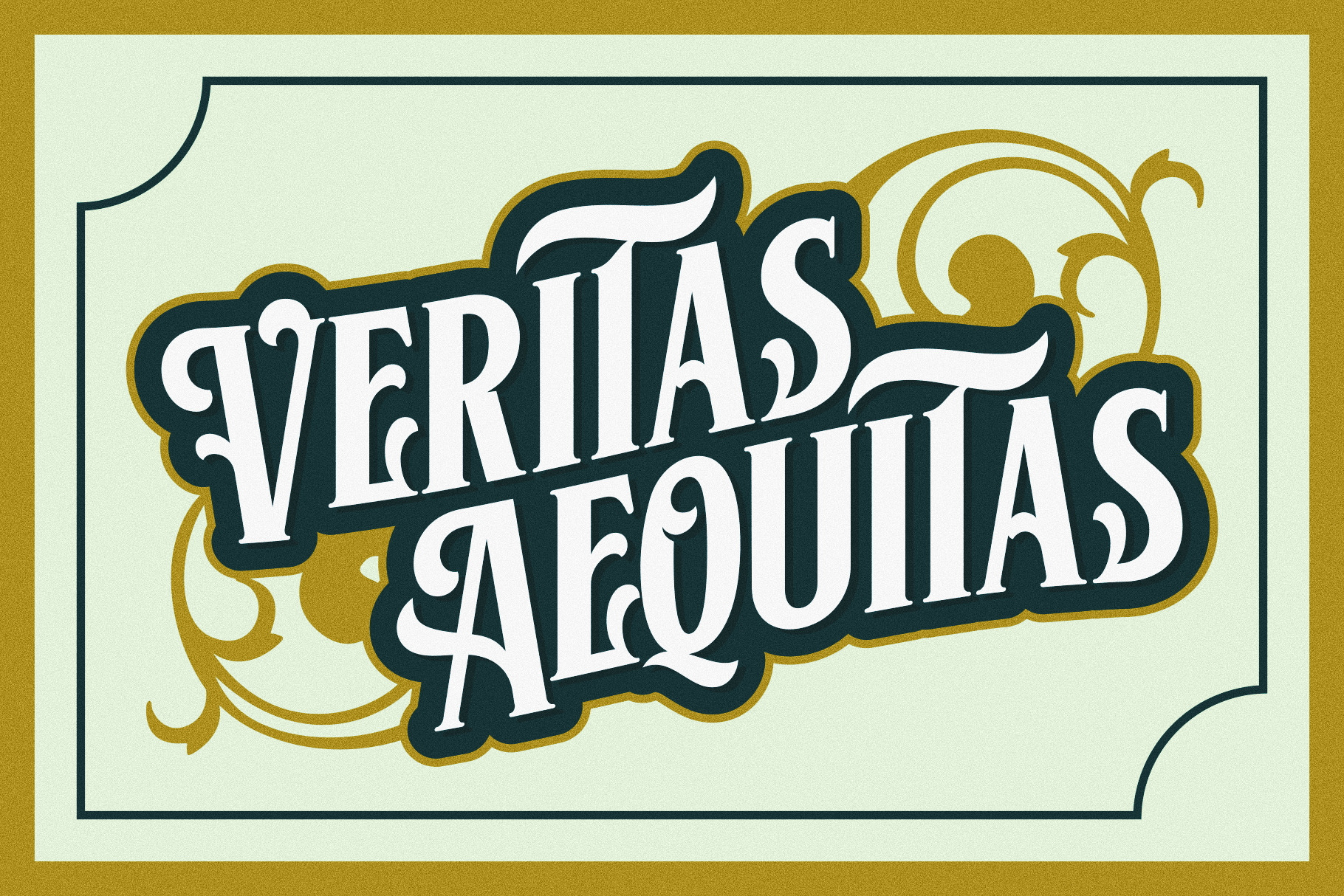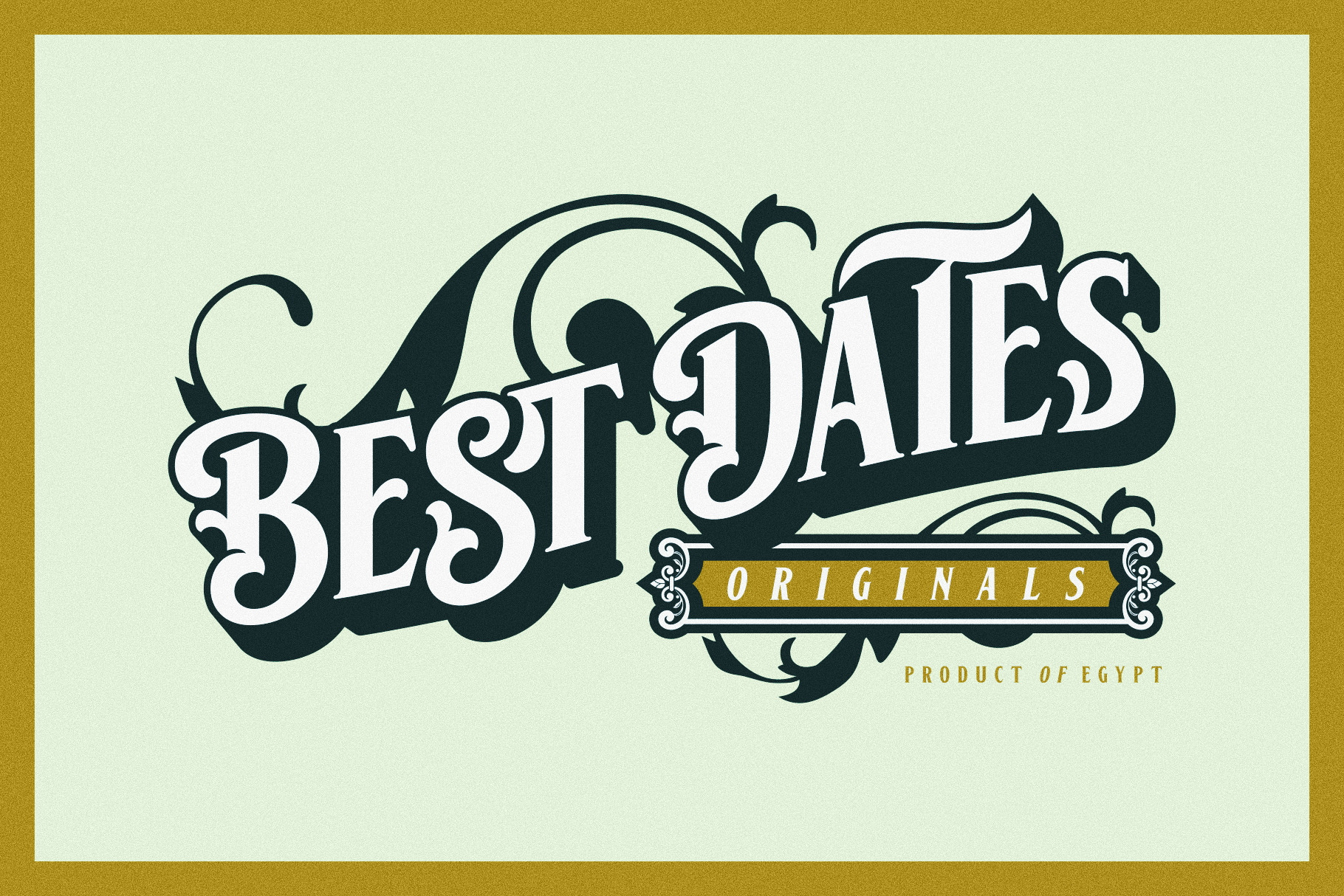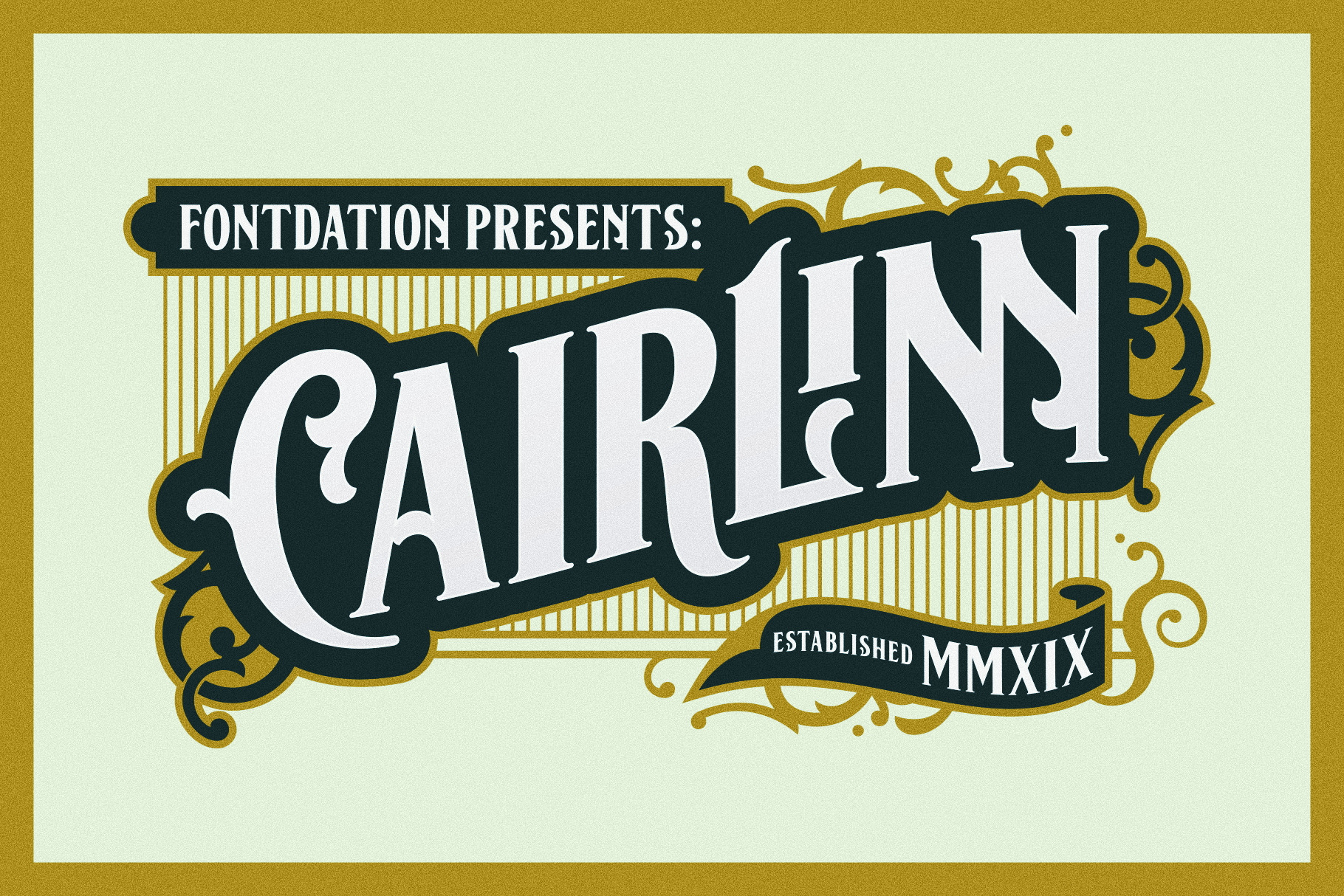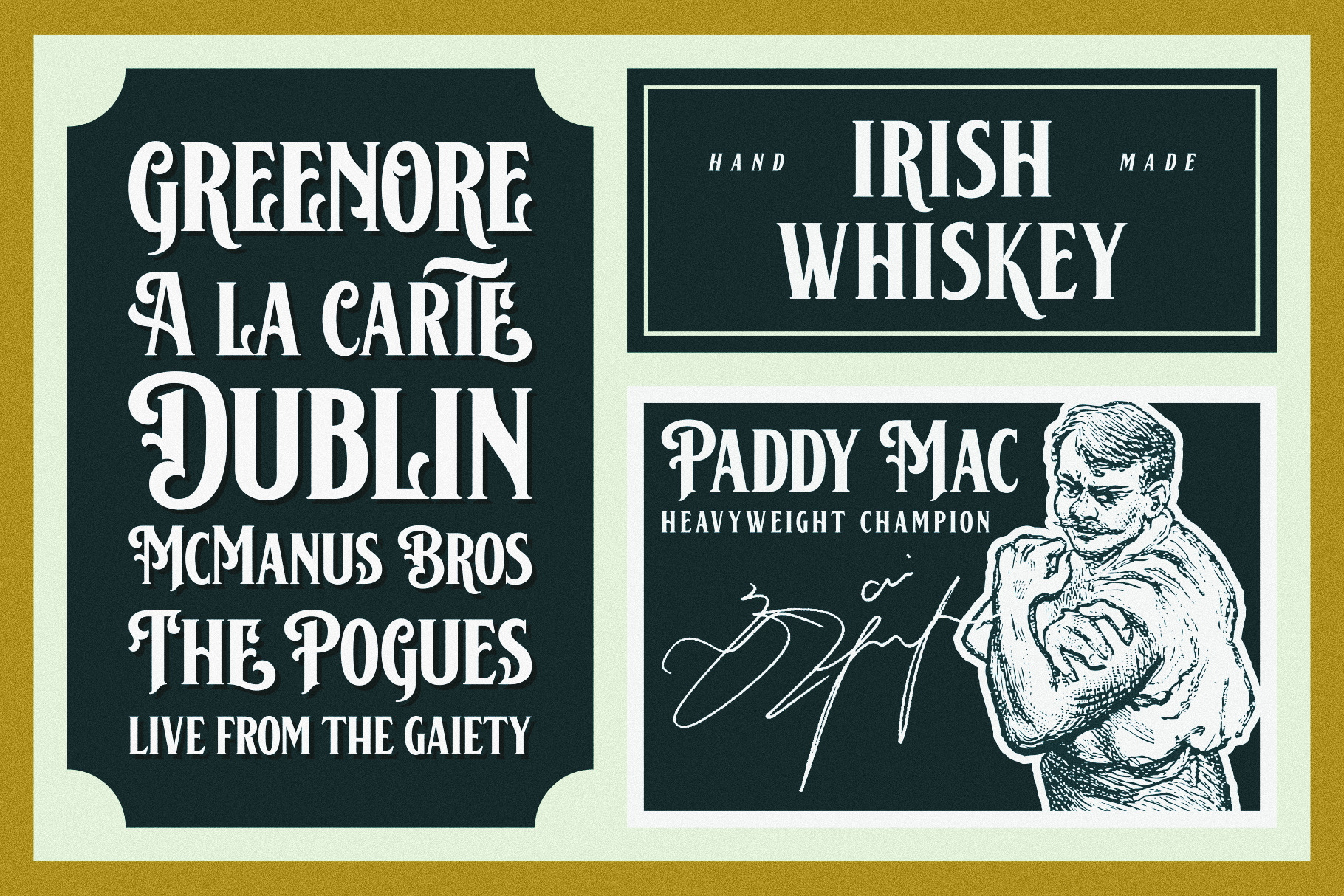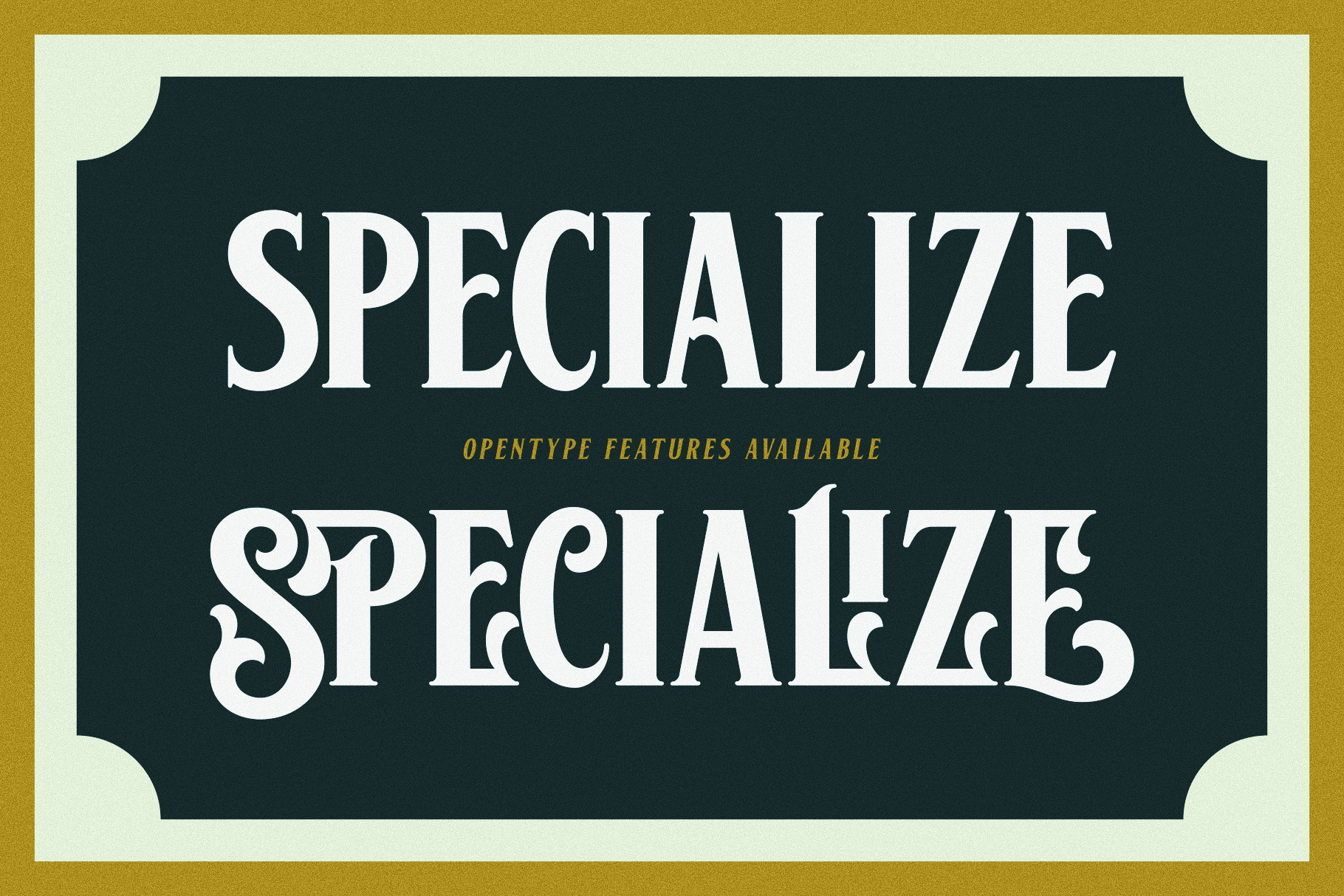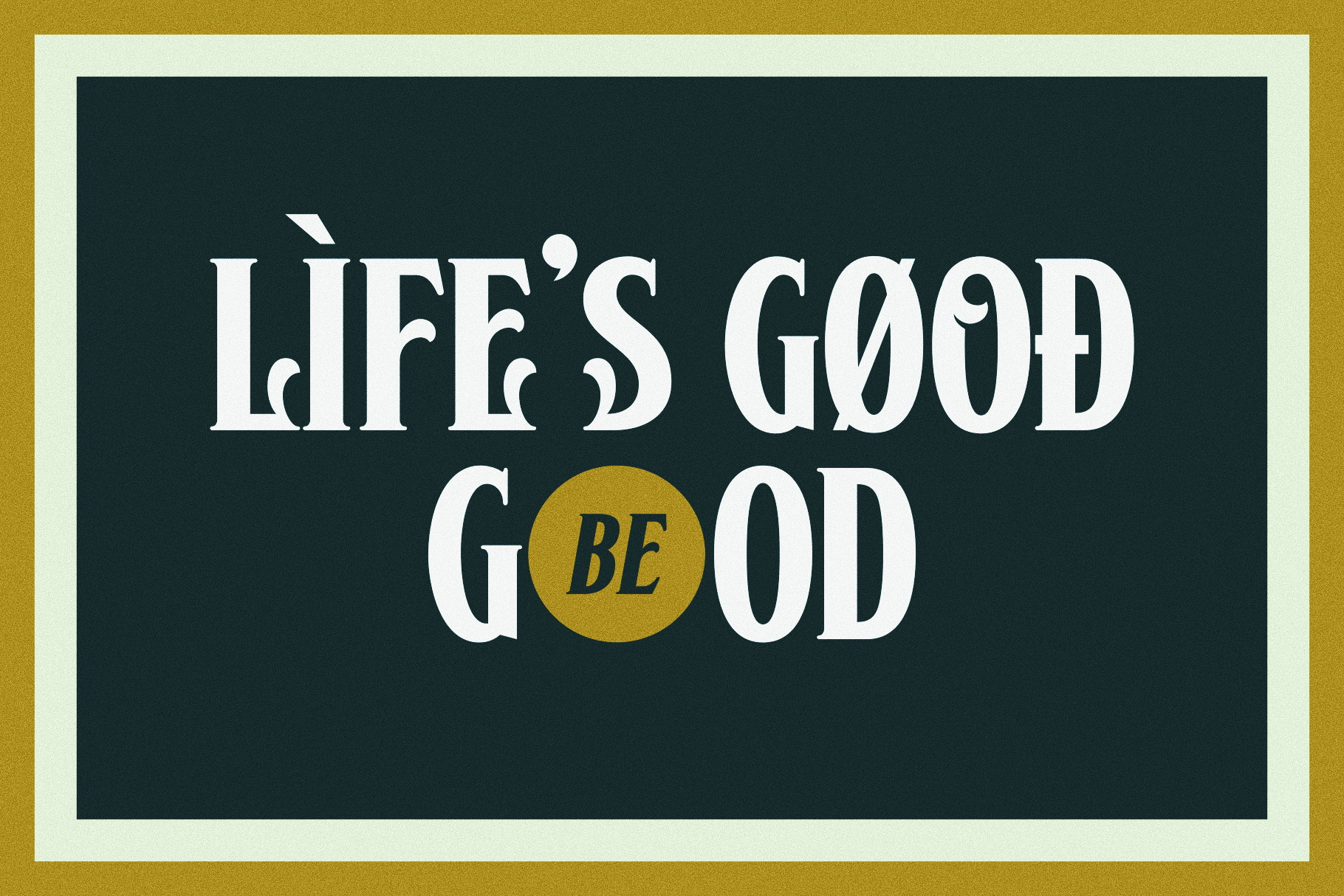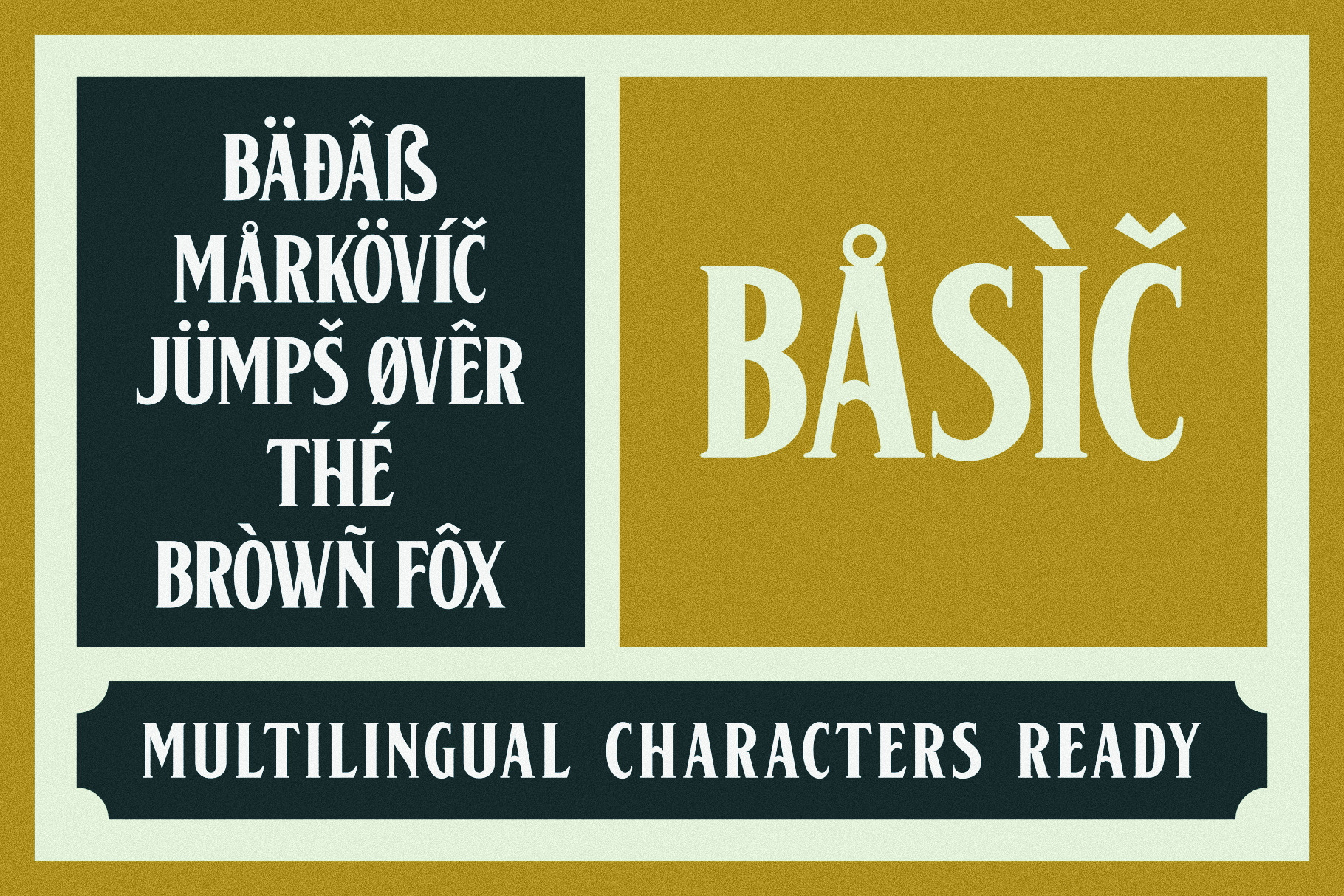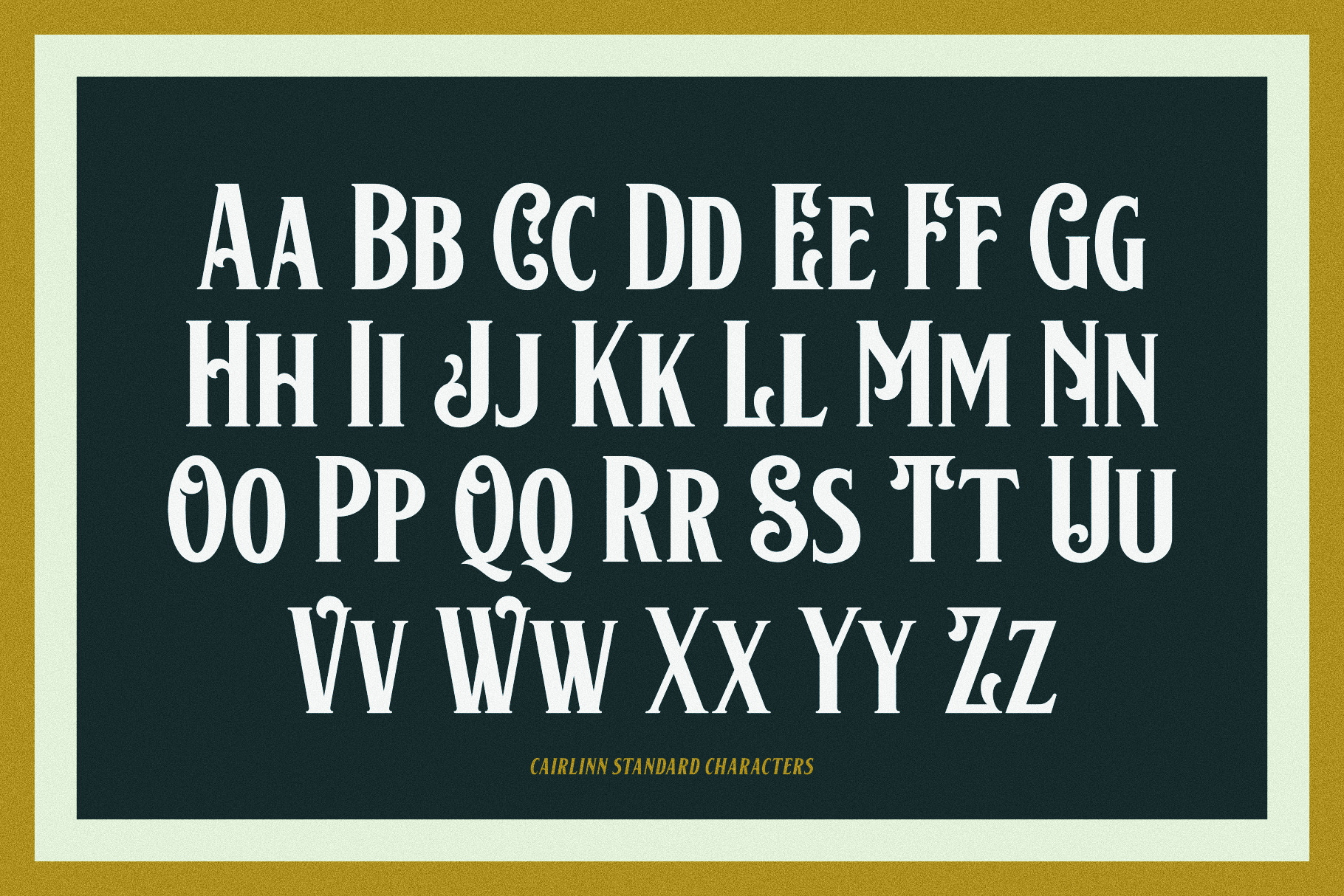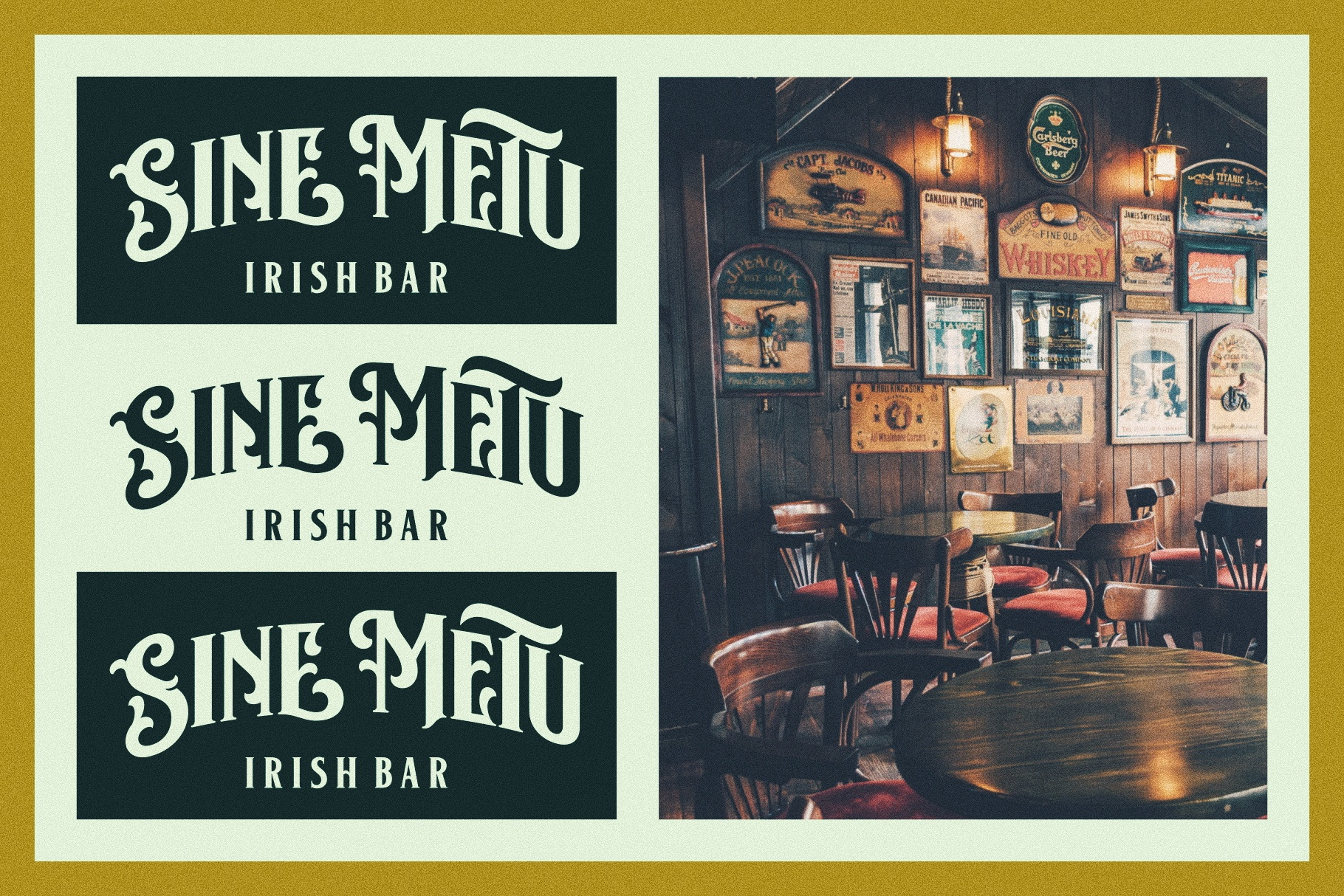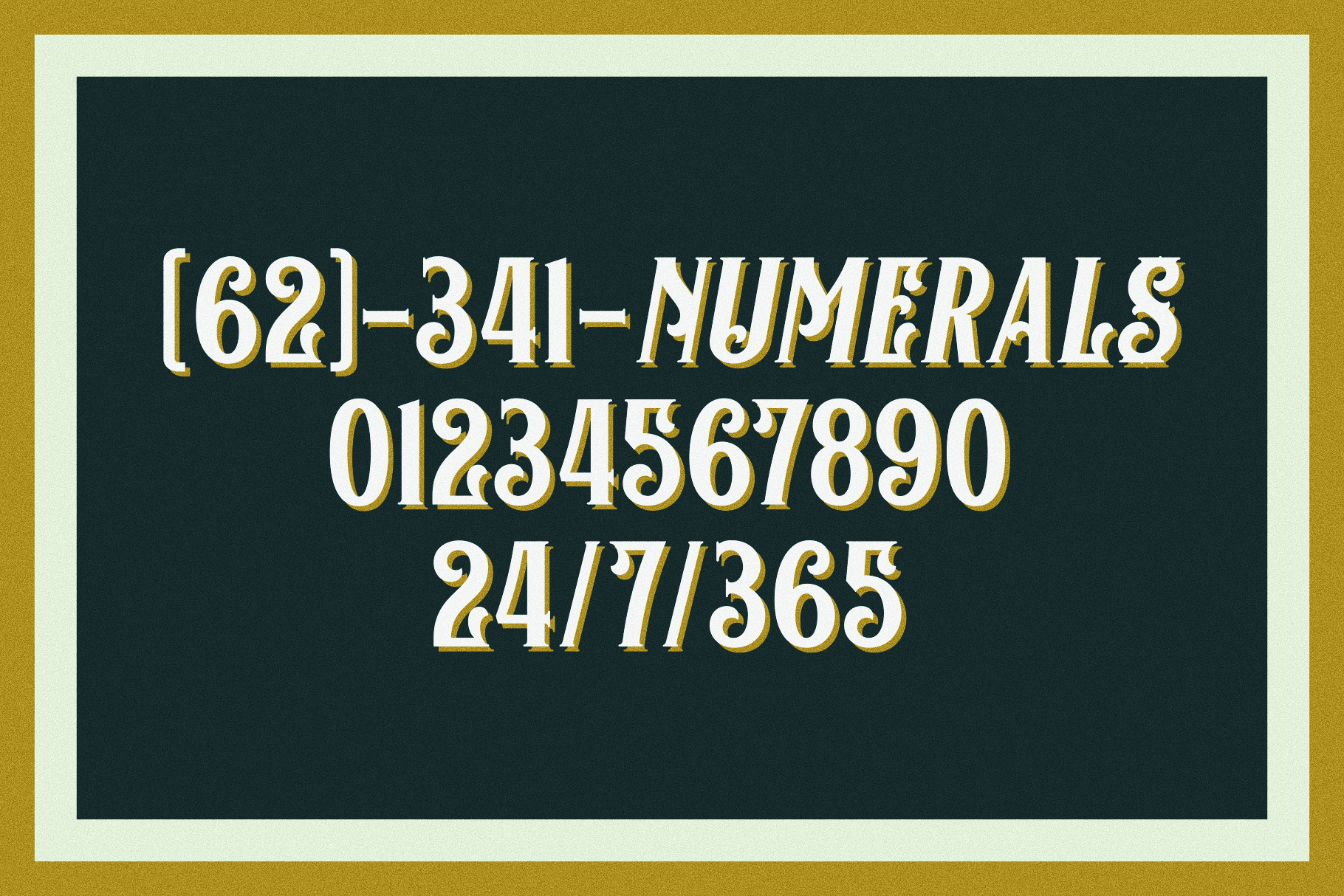
New year, new font. Let us introduce our first font on 2019; Cairlinn. A clean serif that are forged with spirit of vintage typography. Heavily inspired by the old letters that are used in classic advertisements. This 300+ glyphs monster is packed with wide variation of letters, accessible via *OpenType* features. If you're a fan of vintage/classic typography (like me), this font is a precious addition to your design arsenal. Suits best for any project that requires a vintage touch, such as: labels, t-shirt design, typographic quotes, packaging, wedding invitations, and many more. So what are you waiting for, go get this monster and start a rrriiiiiooott! XD CONTENTS: - Standard characters, numerals, and punctuations (OpenType Standard encoding), - Multilingual character supports (Afrikaans, Albanian, Catalan, Croatian, Czech, Danish, Dutch, English, Estonian, Finnish, French, German, Hungarian, Icelandic, Italian, Lithuanian, Maltese, Norwegian, Polish, Portuguese, Slovenian, Spanish, Swedish, Turkish, Zulu), - OpenType features such as alternate characters, stylistic sets, swashes, ligatures, etc, - PUA (Private Use Area) Encoded Characters (you can access the OpenType features without additional design software), - Two styles: Regular, and Italic, - Two formats; .OTF and .TTF. IMPORTANT PLEASE READ: You’ll need a software with Opentype Features support to explore this typeface’s full features, such as Adobe Photoshop, Adobe Illustrator, Corel Draw, Inkscape, etc. For Photoshop CC and Illustrator users, you can access this powerful feature via Glyphs panel window, simply block and double-click the desired letters you want to use and you’re ready to go. You can get the access to these “hidden characters” via Characters Map (Windows) and Fontbook (Mac) too, as this typeface is PUA encoded already. THANKS AND ENJOY! | Cairlinn | Vintage Font | Twicolabs Fontdation